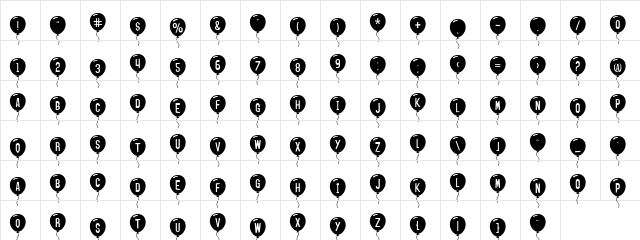
AIN Party Regular
Design Context for AIN Party Typeface
AIN Party is a composed and adaptable typeface that performs quietly and consistently across a wide range of design contexts.